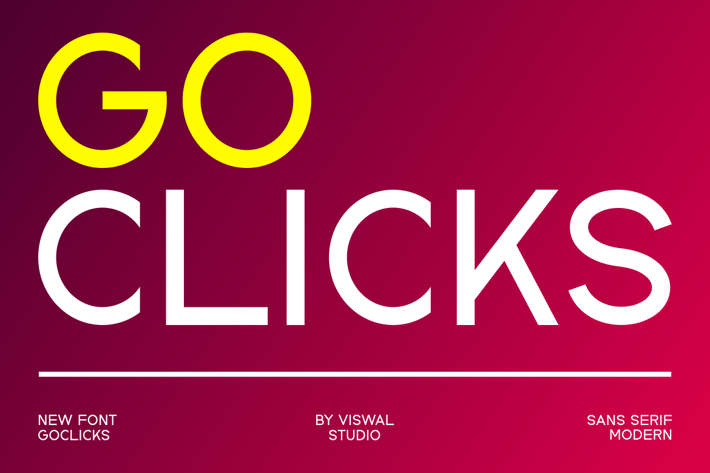
Goclicks - Modern Sans Serif Font.
Presenting Goclicks Is A Modern Sans Serif Font.
Can Make It Easier To Convey The Message In Your Design. Font Is Suitable For Logo, Labels, Badge, Branding, Magazine, Poster, Title, Gigs, Covers And Etc. Our Fonts Have Uppercase & Lowercase, Numeral & Punctuation, And Opentype Features. For Amazing Designs You Can Mix With Other Fonts As A Complement.